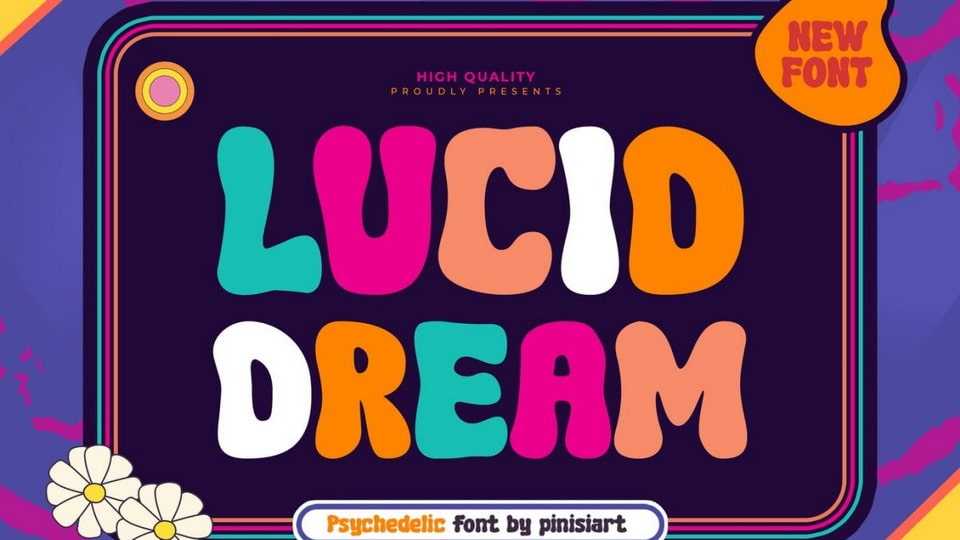
Download Lucid Dream font, a psychedelic fun typeface. Retro and groovy, while keeping it happy. Lucid Dream will bring memories from the late 70s to the modern era.